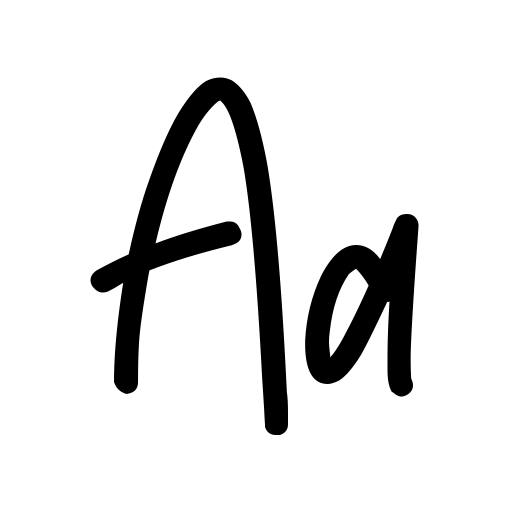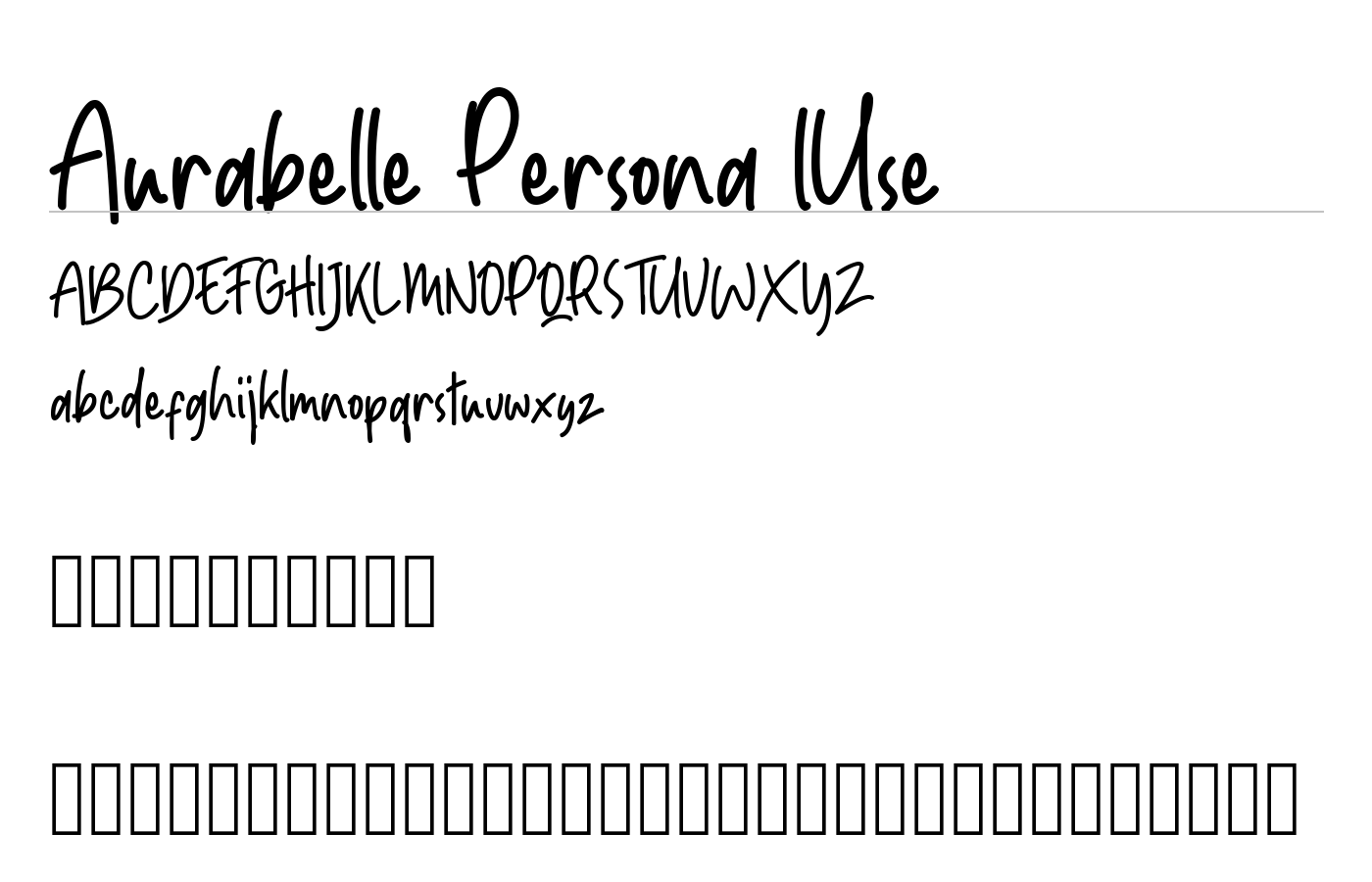
Aurabelle Persona is a casual, handwritten script font with a light to regular weight and a tall x-height that creates an airy, informal feel. Its playful, slightly uneven letterforms with a natural flow lend it a personal and approachable character, making it perfect for friendly branding, invitations, and creative projects that seek a warm, human touch. This font works well in headlines and short texts where a relaxed, authentic vibe is desired.
Aurabelle Persona lUse Font
About Aurabelle Persona lUse Font